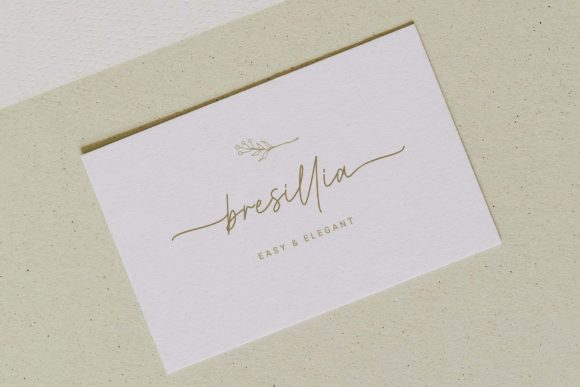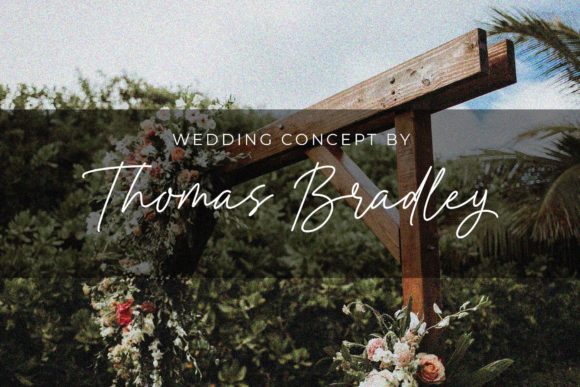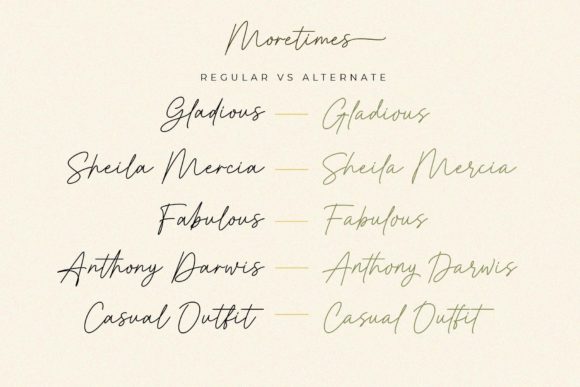
Introduction to Moretimes Font Font
Moretimes is a modern and clean handwritten font featuring an elegant and natural flow.
Each uppercase and lowercase letter has an alternative – this gives you more options to customize the design as you like This font is perfect for logo design, quotes, wedding invites, branding, signature, watermark, fashion, and more.